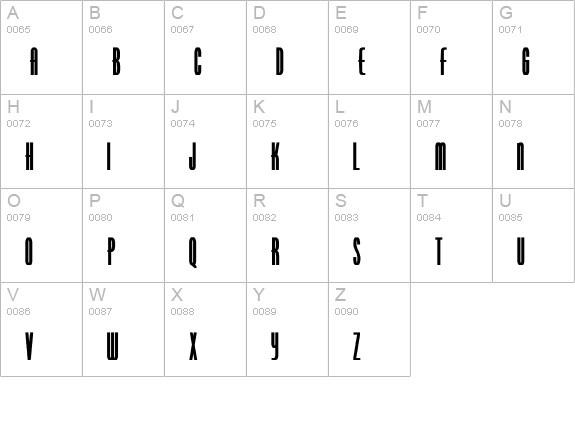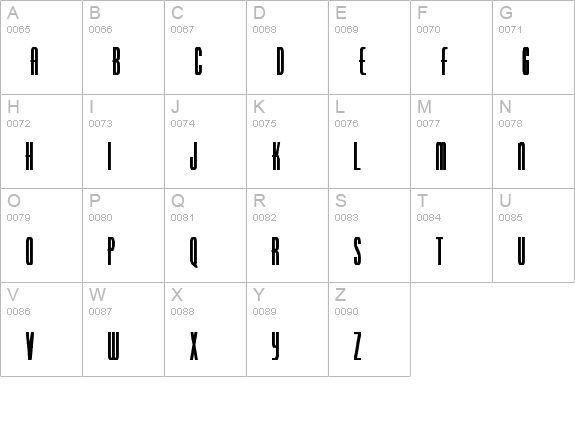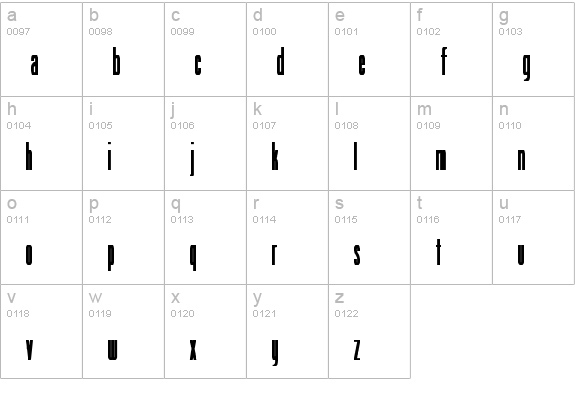
Venus-Normal Bold is the standard, neutral variant in the Venus typeface family \xE2\x80\x94 well suited to general body text, paragraphs, and standard typographic work.
Introducing Venus-Normal Bold, a striking and versatile font that effortlessly captures attention with its bold and confident presence. This font is perfect for any design project that requires a touch of boldness and modernity. Venus-Normal Bold stands out with its clean lines and sturdy letterforms, making it an ideal choice for headlines, logos, posters, and more. It exudes a sense of strength and sophistication while maintaining a contemporary appeal. With Venus-Normal Bold, you can convey your message with utmost clarity and impact. Each character is meticulously crafted to ensure legibility, even at smaller sizes. Whether it's on digital platforms or in print, this font will leave a lasting impression on your audience. But what sets Venus-Normal Bold apart from the rest is that it is freely available to download at FontsMarket.com. Yes, you read that right – this amazing font can be yours without any cost. FontsMarket.com offers a wide range of high-quality fonts, and Venus-Normal Bold is just one of the many gems you can find there. So why wait? Download Venus-Normal Bold today and elevate your designs to new heights. With its boldness, versatility, and the added bonus of being free, this font is a must-have for any designer or creative professional looking to make a bold statement.